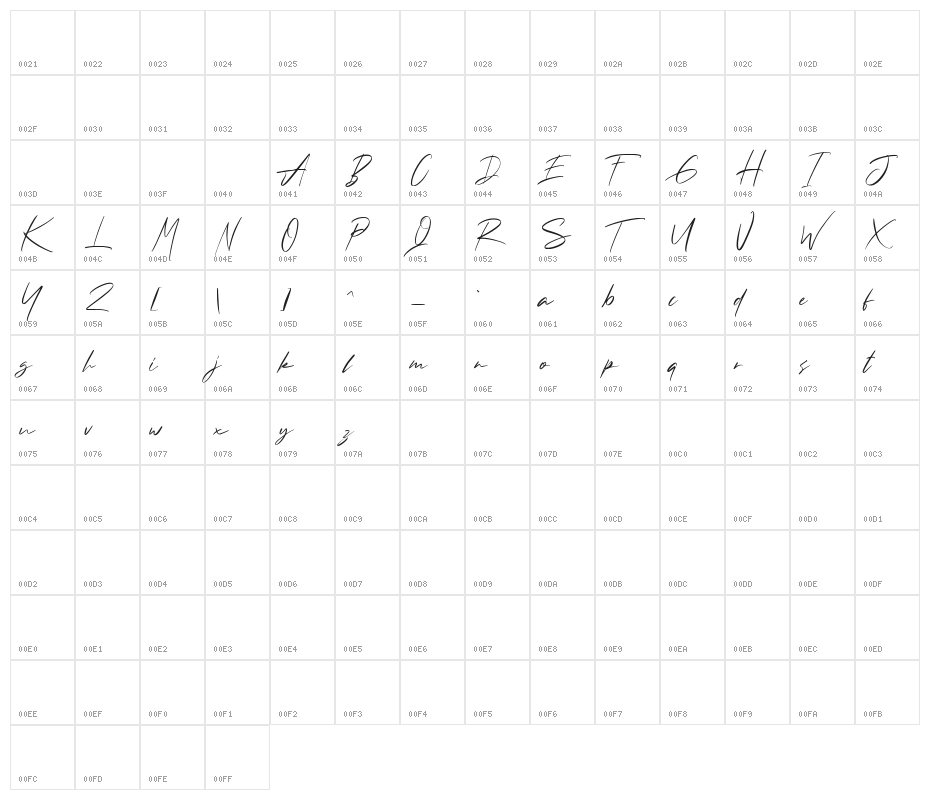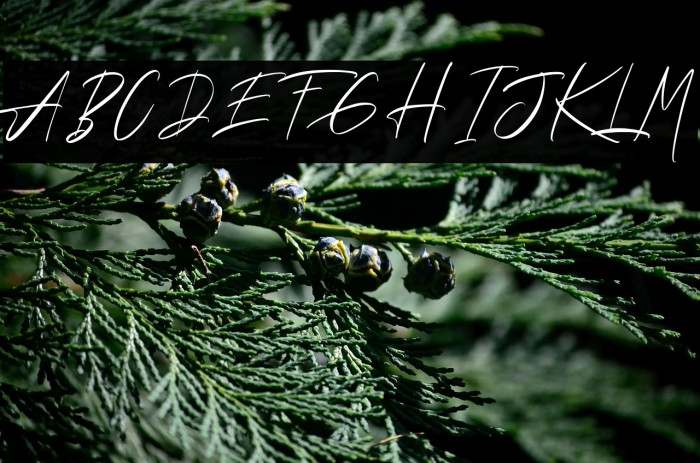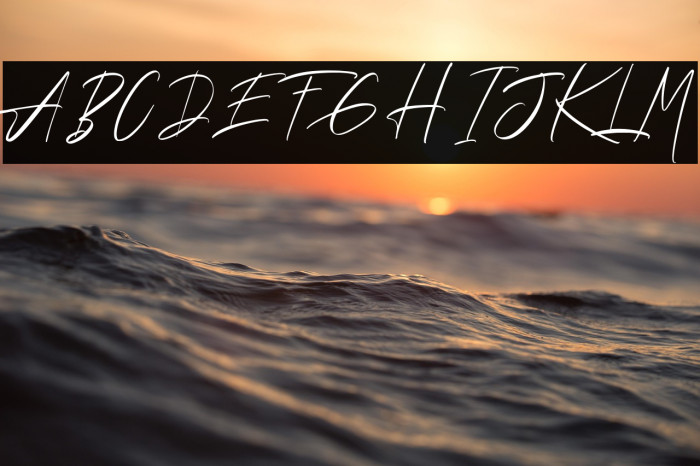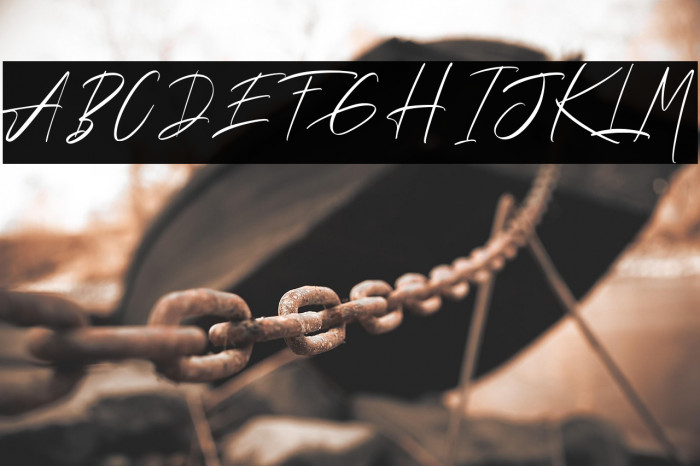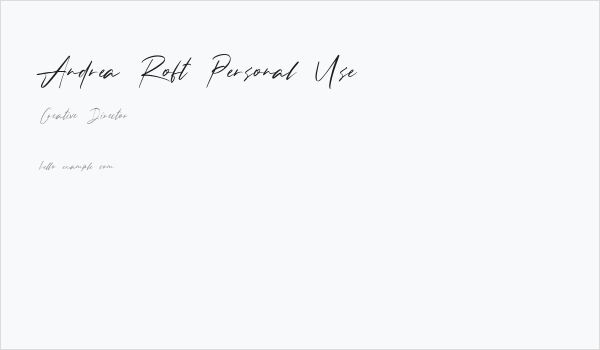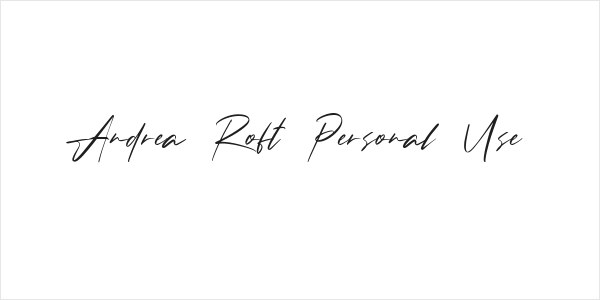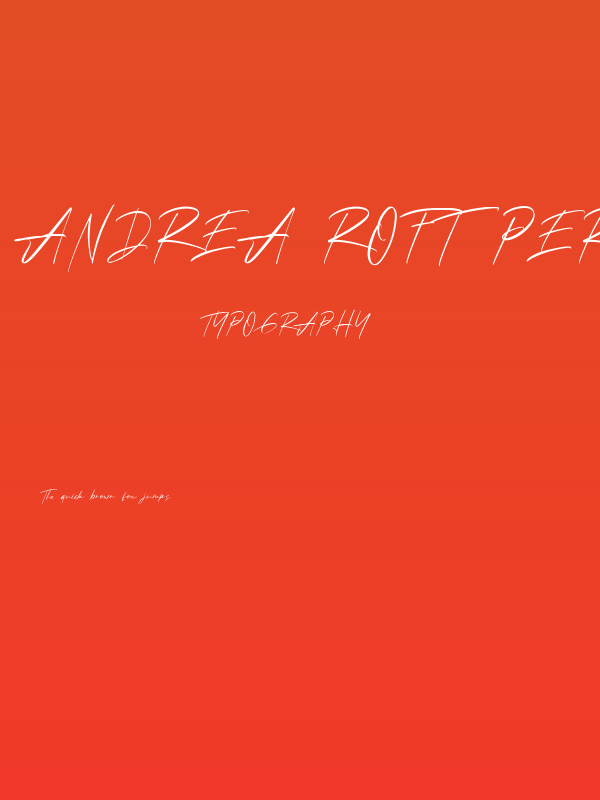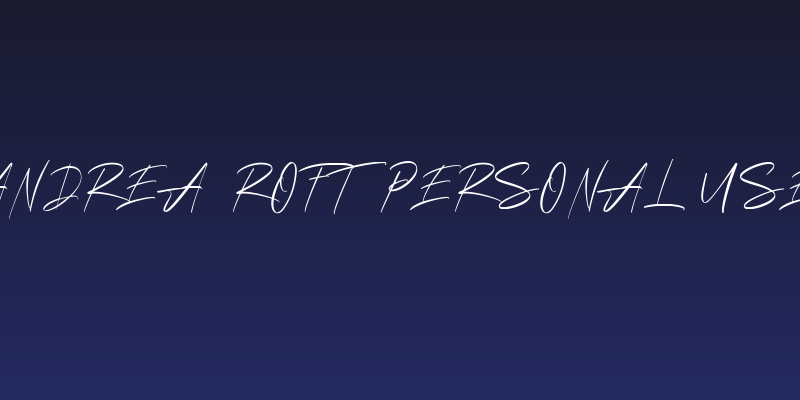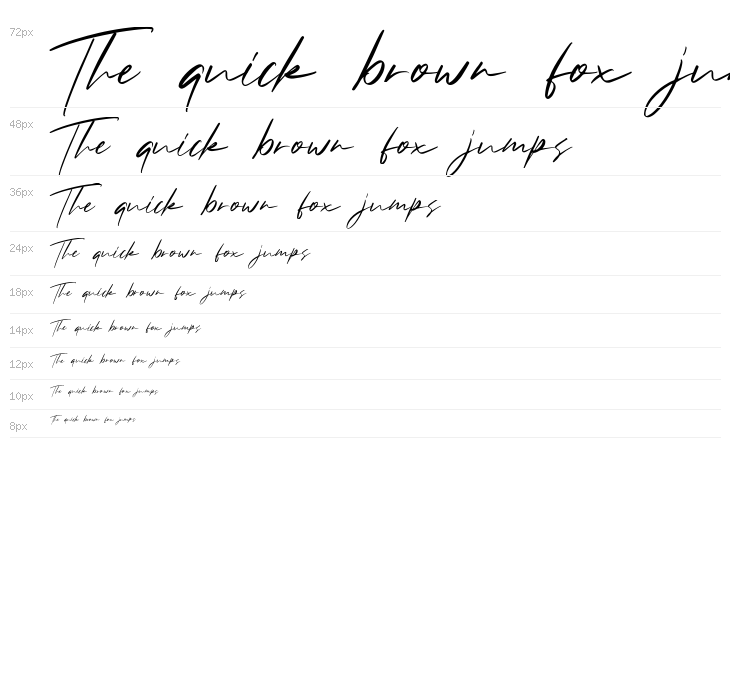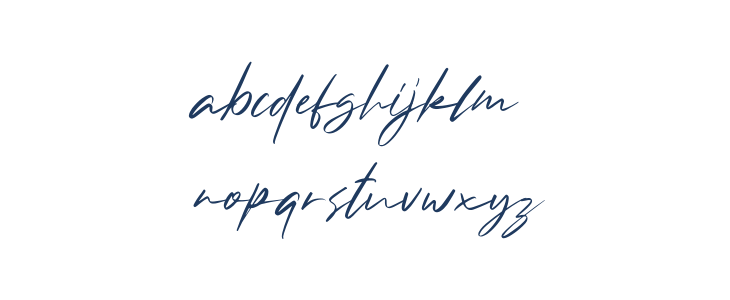
Andrea Roft Personal Use Font
Andrea Roft Personal Use Description
This font exudes a modern, handwritten style with a touch of elegance and spontaneity. The uppercase letters are tall and slightly slanted, giving a sense of movement and fluidity. The lowercase letters are more compact, maintaining a consistent flow that mimics natural handwriting. The strokes are varied, with some letters featuring thin, delicate lines and others showcasing bolder, more pronounced strokes, creating a dynamic contrast. The overall appearance is casual yet sophisticated, making it suitable for projects that require a personal touch. The font's unique character spacing adds to its charm, providing a sense of rhythm and continuity.
| Proposed Projects | Ideal for wedding invitations, personal branding, greeting cards, and artistic projects. |